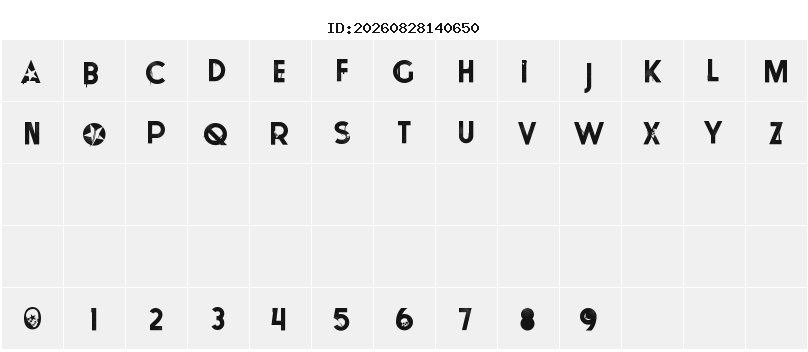
Tokyo Pop Star DEMO Preview
• Font Name: Tokyo Pop Star DEMO
• Full Font Name: Tokyo Pop Star DEMO
About Tokyo Pop Star DEMO.ttf
Tokyo Pop Star DEMO.ttf is a modern, elegant sans-serif font designed for ultimate readability and visual harmony. Perfect for branding, headlines, web design, and print materials.